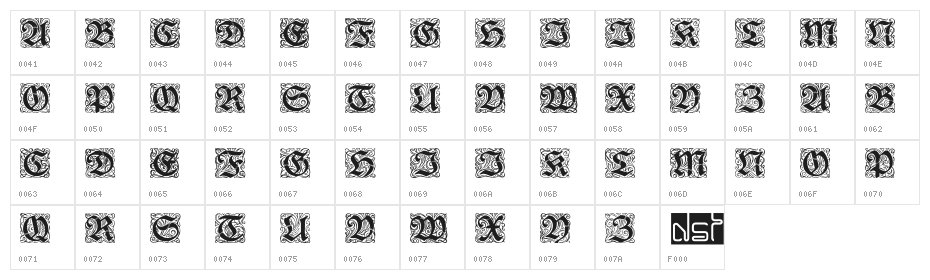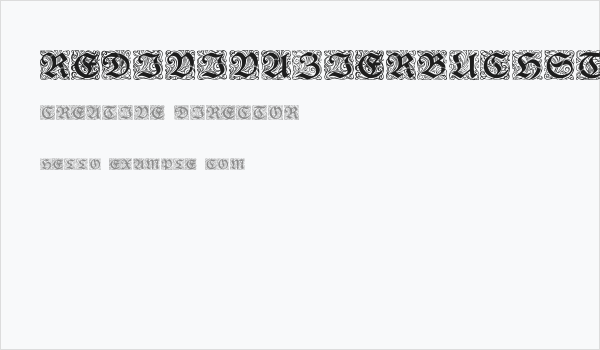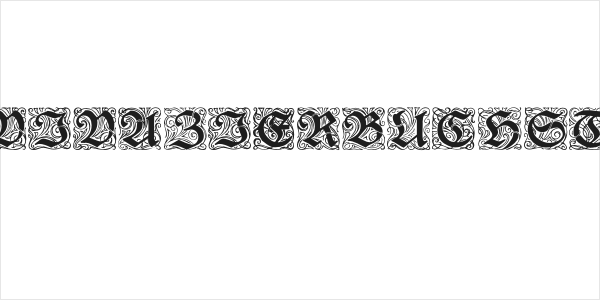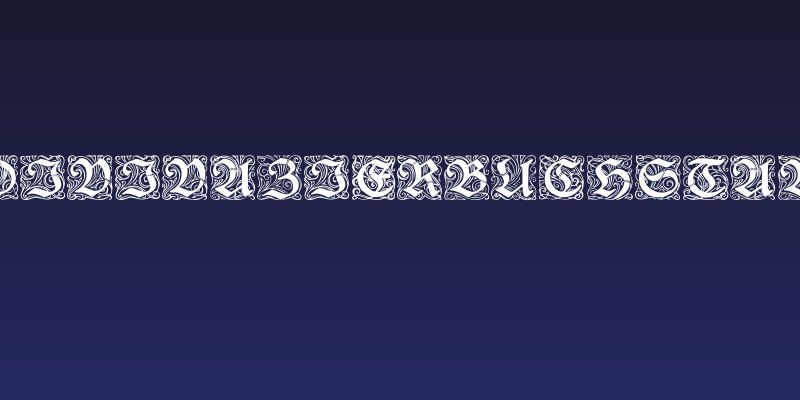
RedivivaZierbuchstaben Font
RedivivaZierbuchstaben Description
This font is an intricate and highly decorative typeface that features elaborate embellishments and ornate details. Each character is enclosed within a square, creating a uniform yet artistic appearance. The design is reminiscent of historical or medieval script styles, with swirling patterns and flourishes that give it a luxurious and sophisticated look. The font is primarily uppercase, with each letter showcasing unique decorative elements that make it stand out. The overall aesthetic is bold and eye-catching, suitable for projects that require a touch of elegance and grandeur.
| Proposed Projects | Ideal for use in invitations, certificates, book covers, and any project requiring a historical or luxurious touch. |